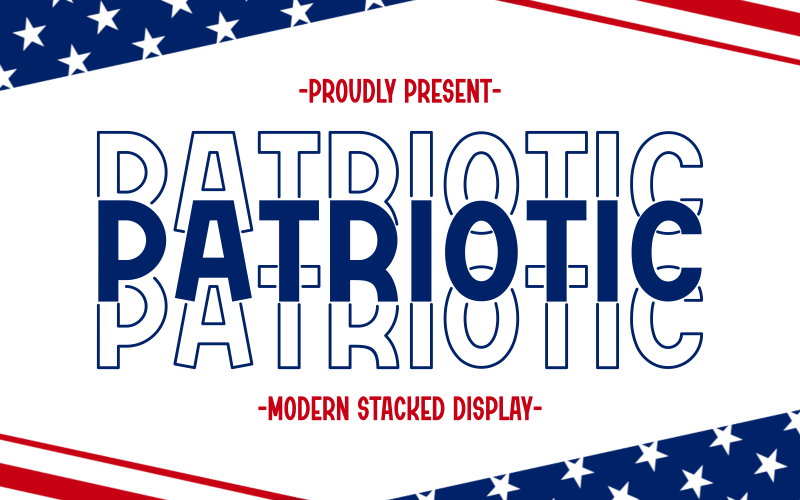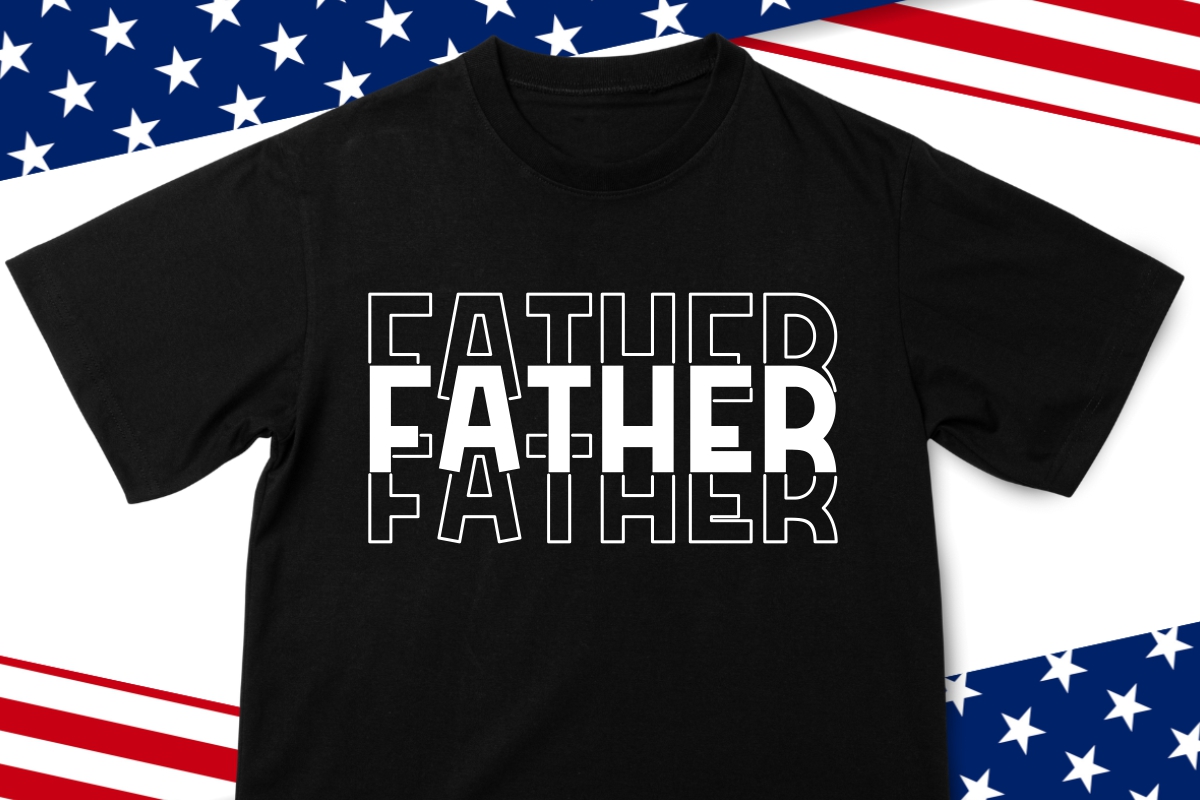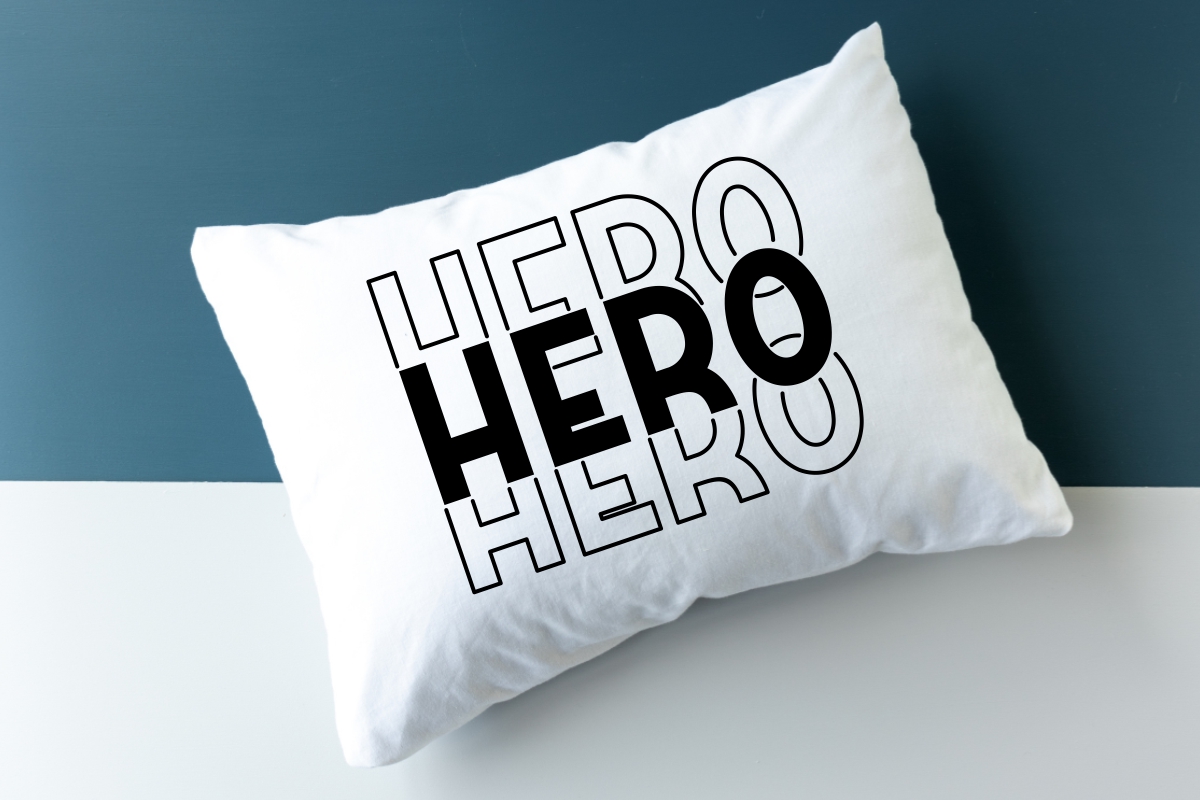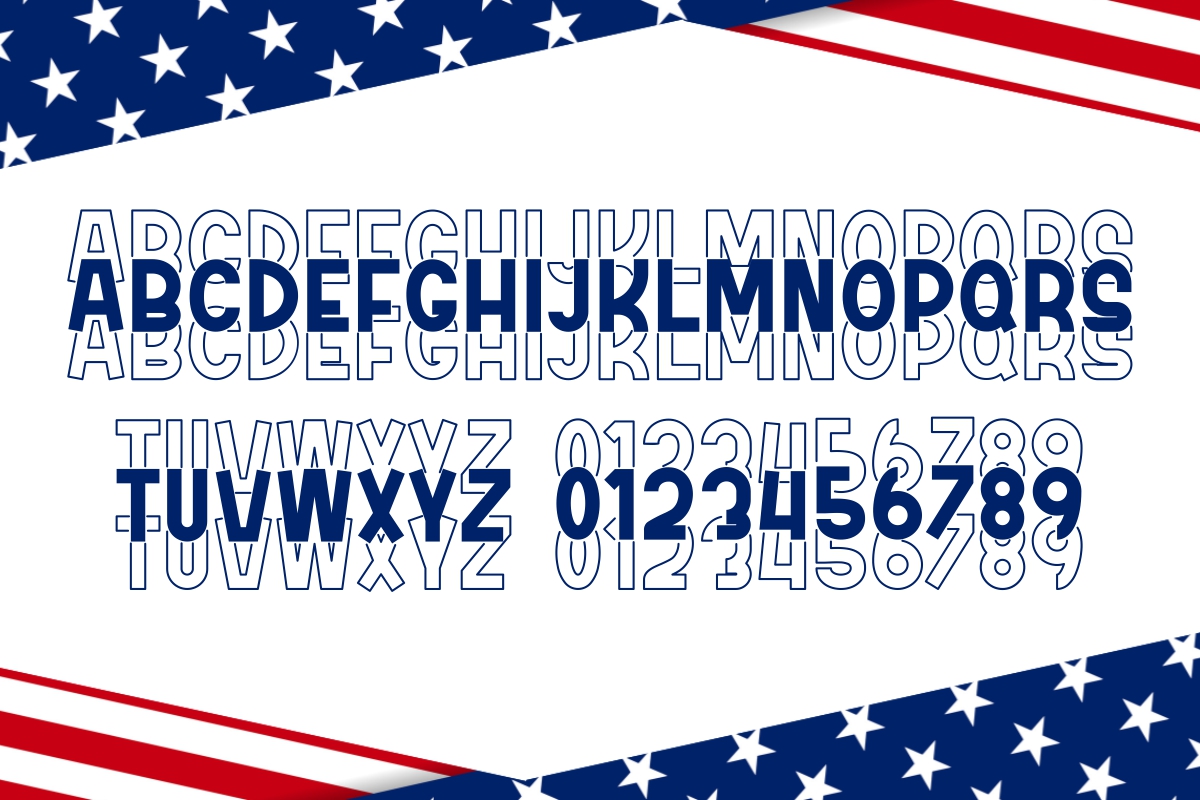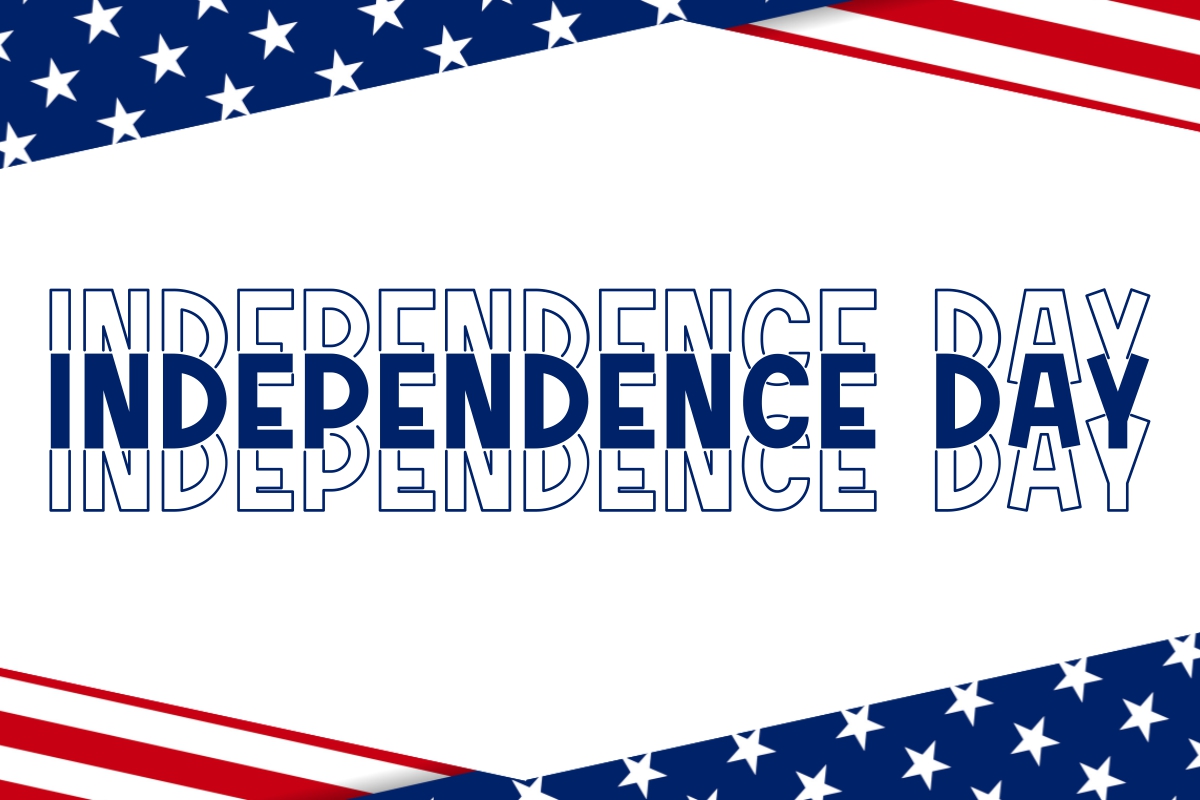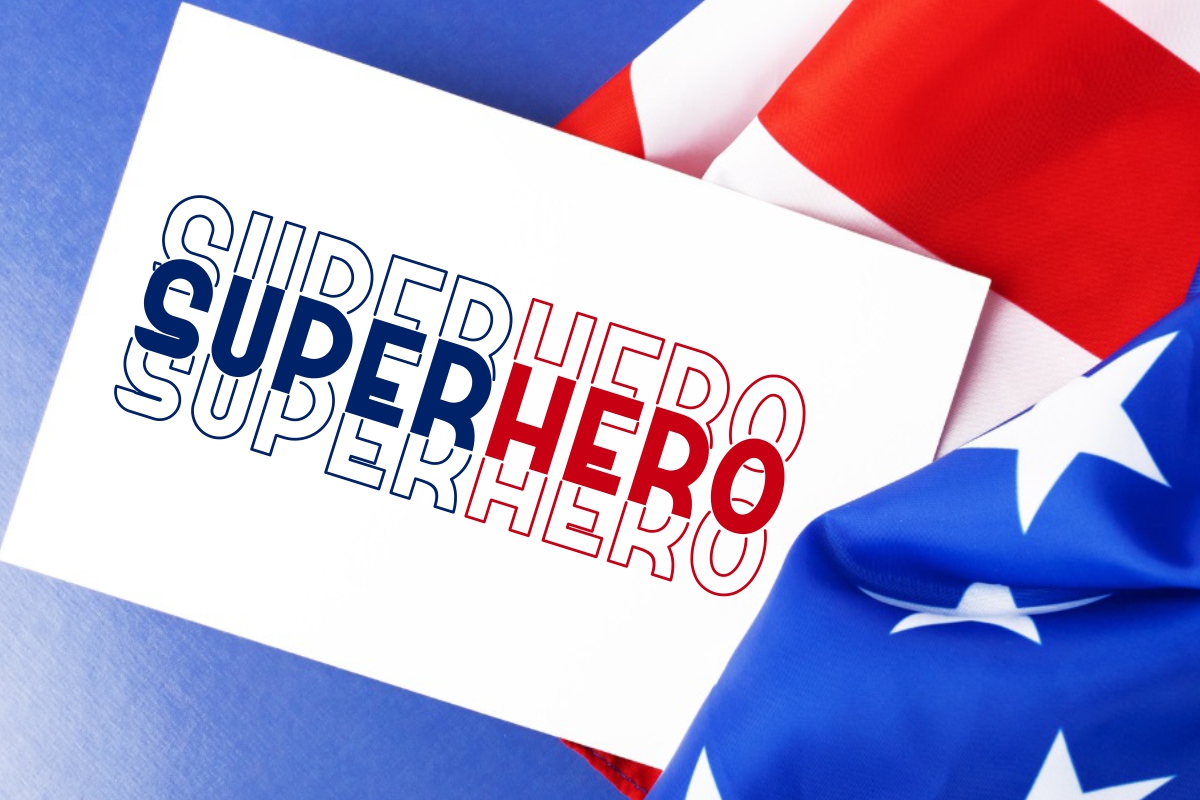
Patriotic - Modern Stacked Font
Introducing PATRIOTIC, a dynamic and powerful display font that redefines modern headline typography. Its greatest strength lies in its unique layered system: the package includes both Solid and Outline files, enabling designers to effortlessly create eye-popping, professional, two-tone effects with complete control over color and depth. Inspired by bold athletic graphics and modern poster design, Patriotic provides maximum visual impact. Its clean lines and commanding presence make it suitable for projects that require a strong, clear, and high-energy message.